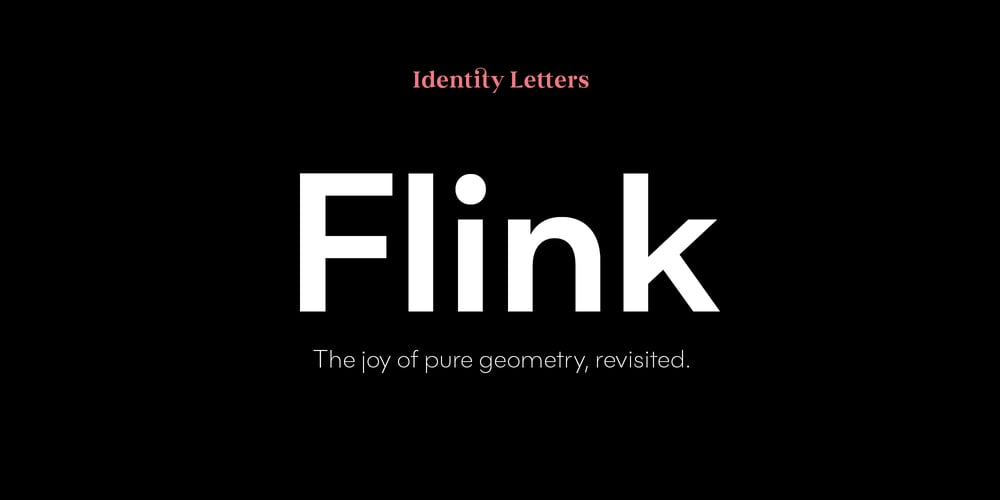
Flink
Flink font
Flink Font Family was designed by Moritz Kleinsorge and published by Identity Letters. Flink contains 16 styles and family package options. The joy of pure geometry, revisited.Geometric typefaces are a staple in every typographer’s toolbox since the 1920s. It was a time when iconic faces such as Futura, Erbar, and Kabel appeared on the scene and turned the world of type upside-down. Inspired by those early giants as well as later epigones with a legacy of their own (such as 1970’s Avant Garde Gothic), Flink is the Identity Letters take on this genre, characterized by a clean and focused appearance.With neat shapes and the look of pure geometry, Flink adapts to a vast range of applications and topics, from the fine print in contract to website body copy to logo design to billboard-size slogans. Its x-height is considerably larger than in classic geometric sans-serif fonts; its proportions are harmonized as opposed to strictly constructed. This makes for a more contemporary look, setting it apart from the classics. To further reduce the rigidity of a purely geometric composition, you can replace some letters with more humanist alternates, such as a, g, j, etc.This font family comes along in 8 weights from Thin to Black. Each weight consists of an Upright and Italic version. There are more than 750 characters per style, including two stylistic sets that offer variations to the look and feel of Flink, making it even more versatile. Plenty of additional Open Type Features like ligatures, case sensitive forms, old-style figures, and symbols make Flink a valuable tool for the discerning typographer.Flink is the reimagination of a classic genre, designed to suit the needs of our time.–––––Please note: There is an upgraded Version available: Flink Neue